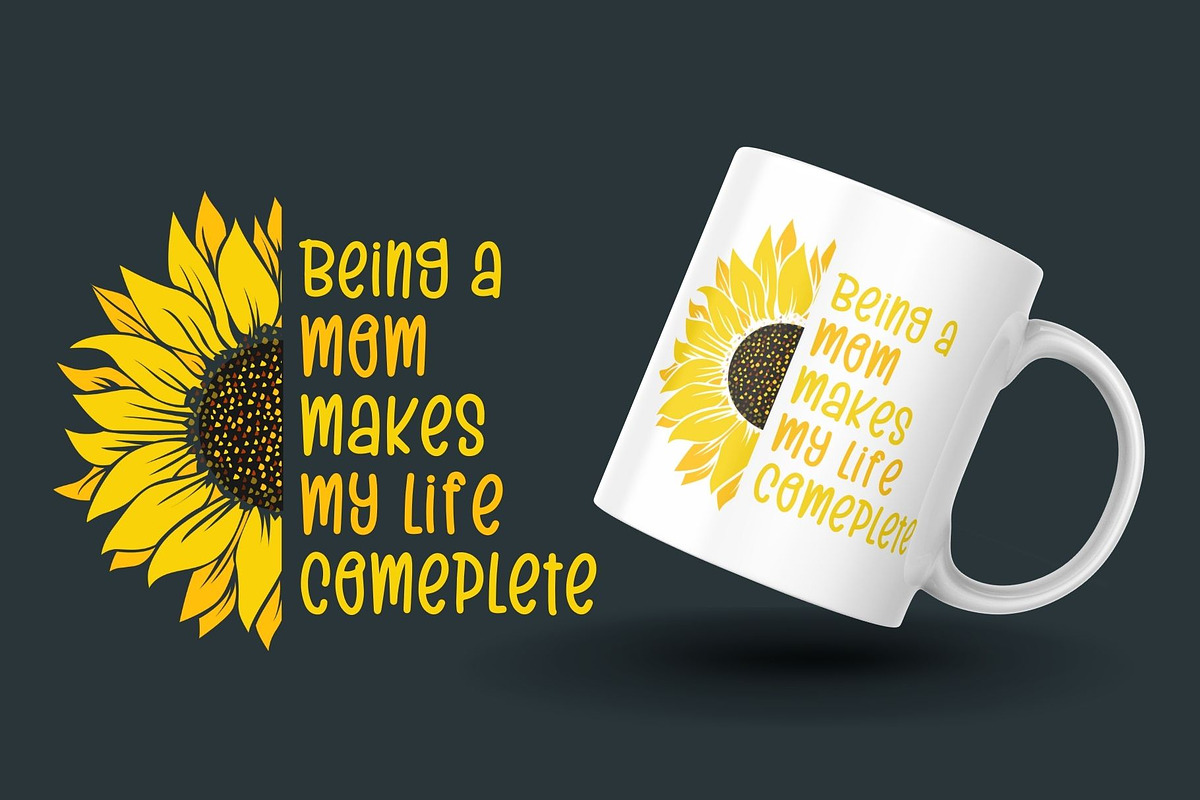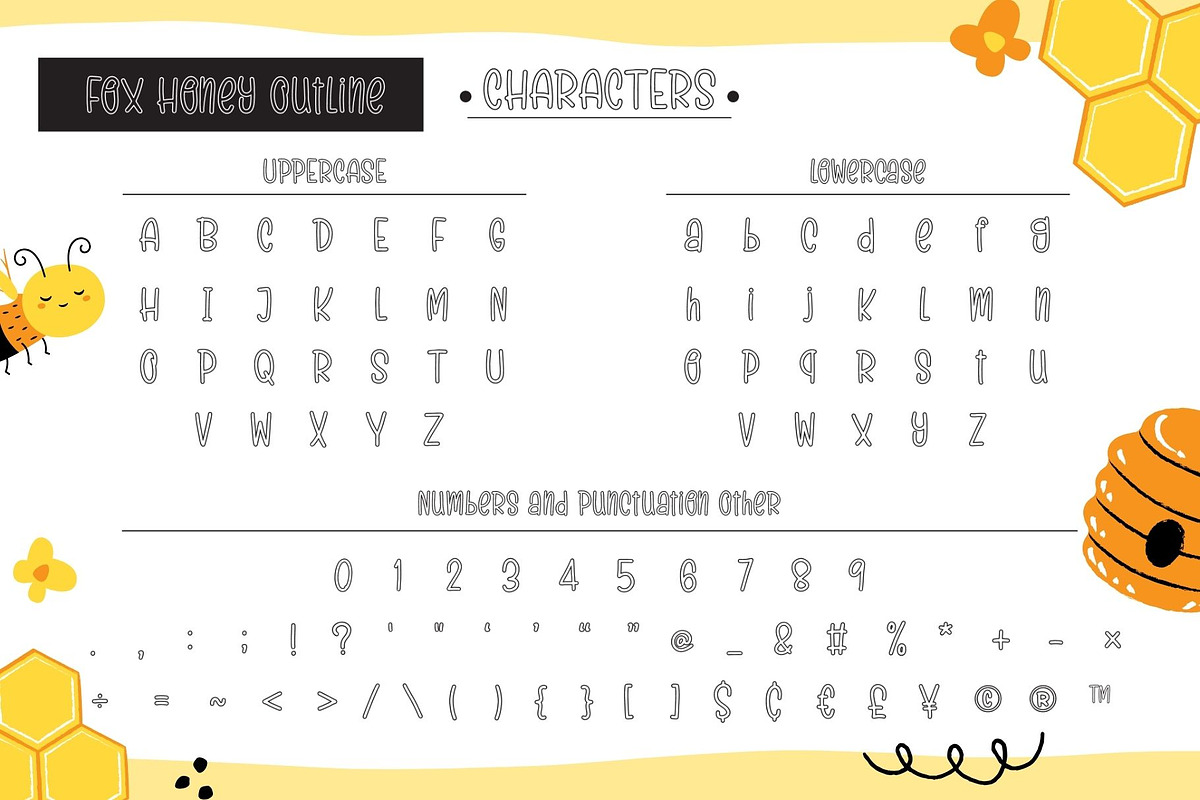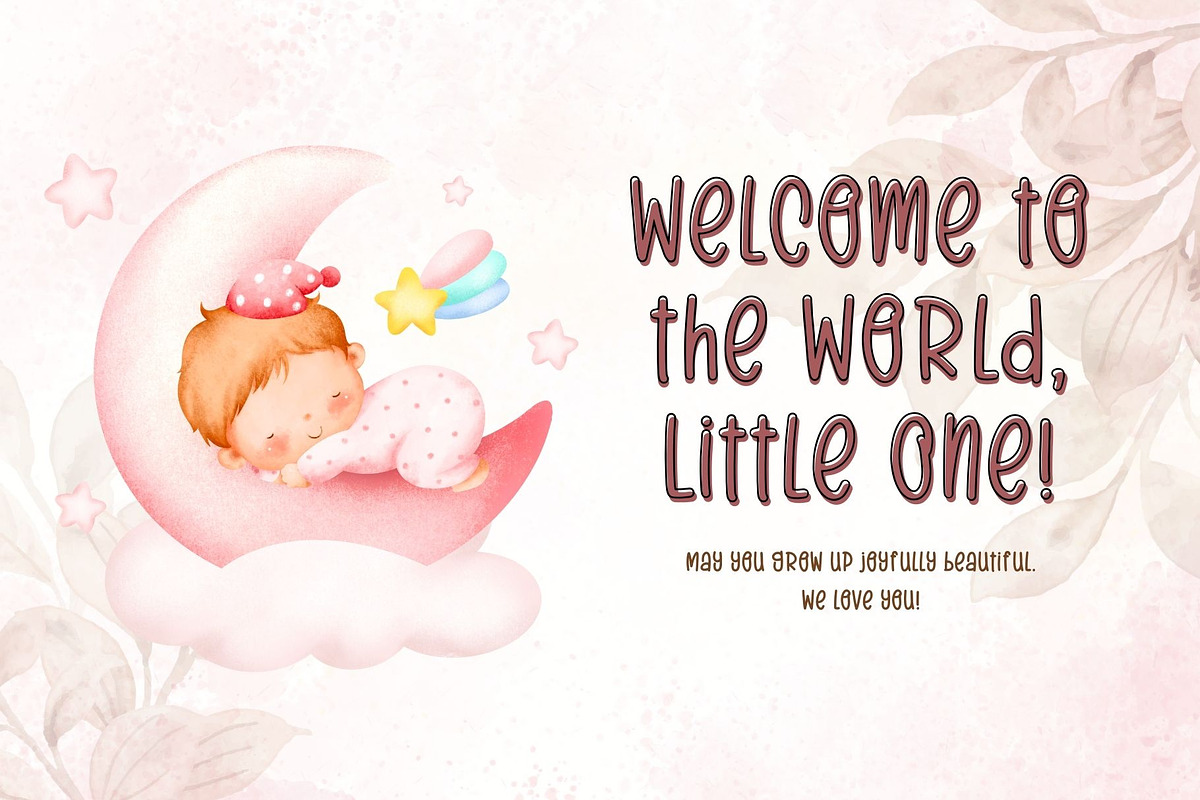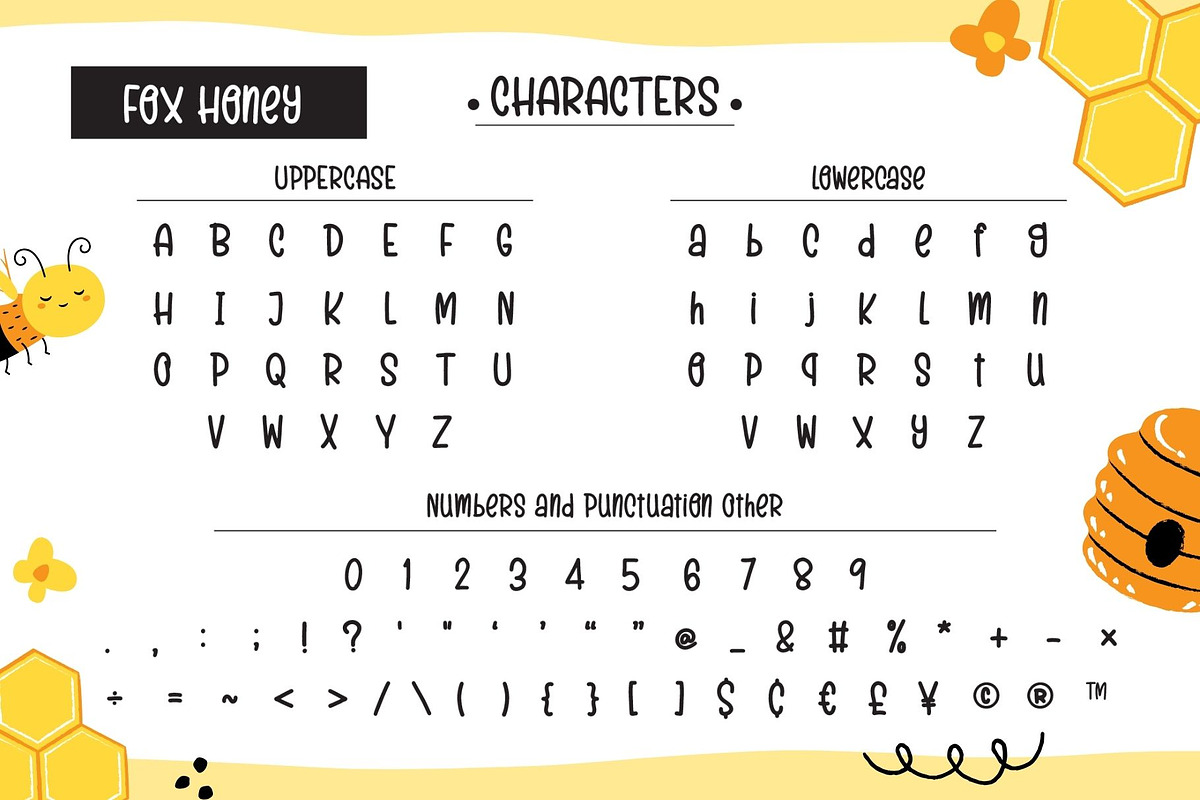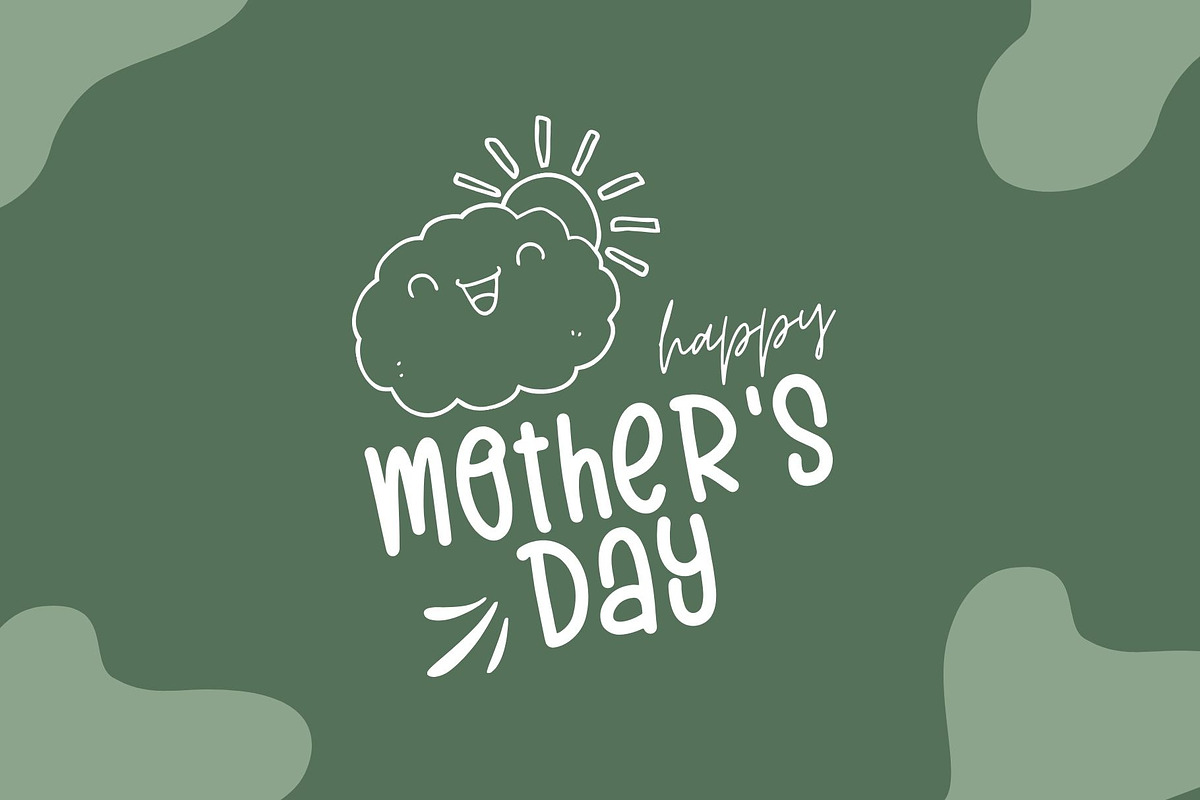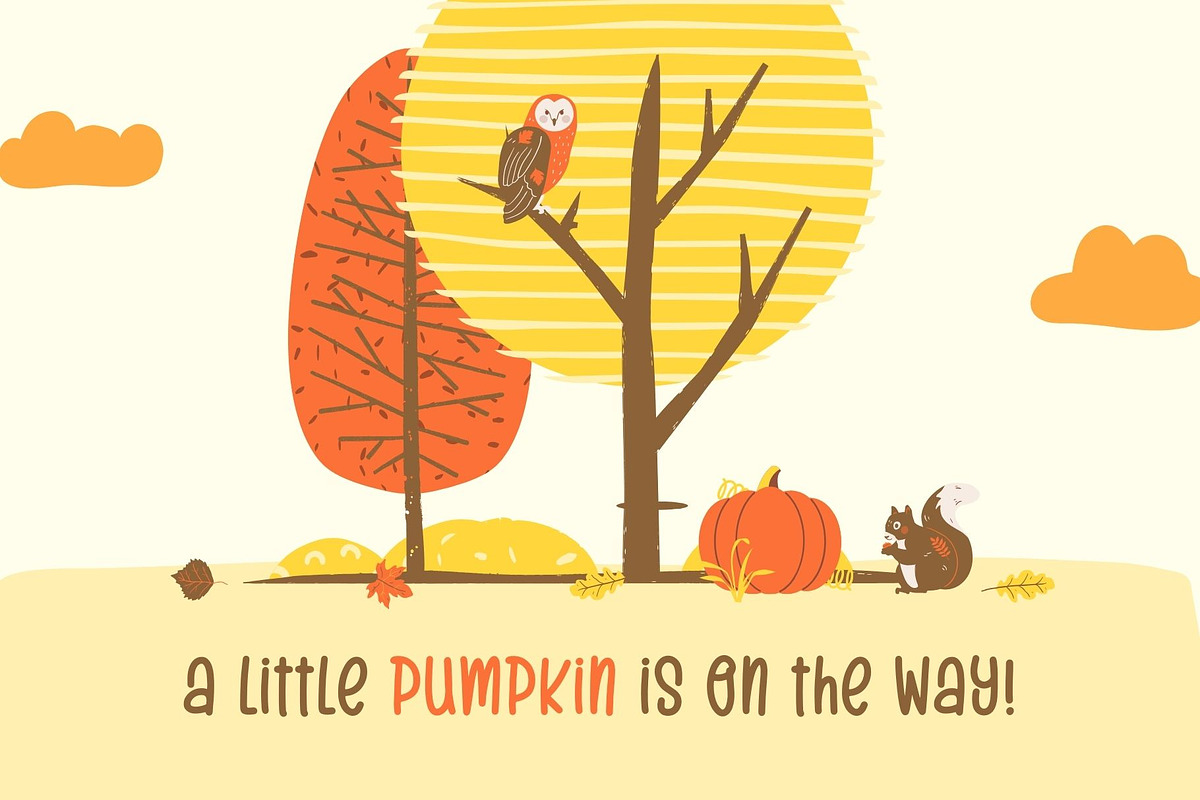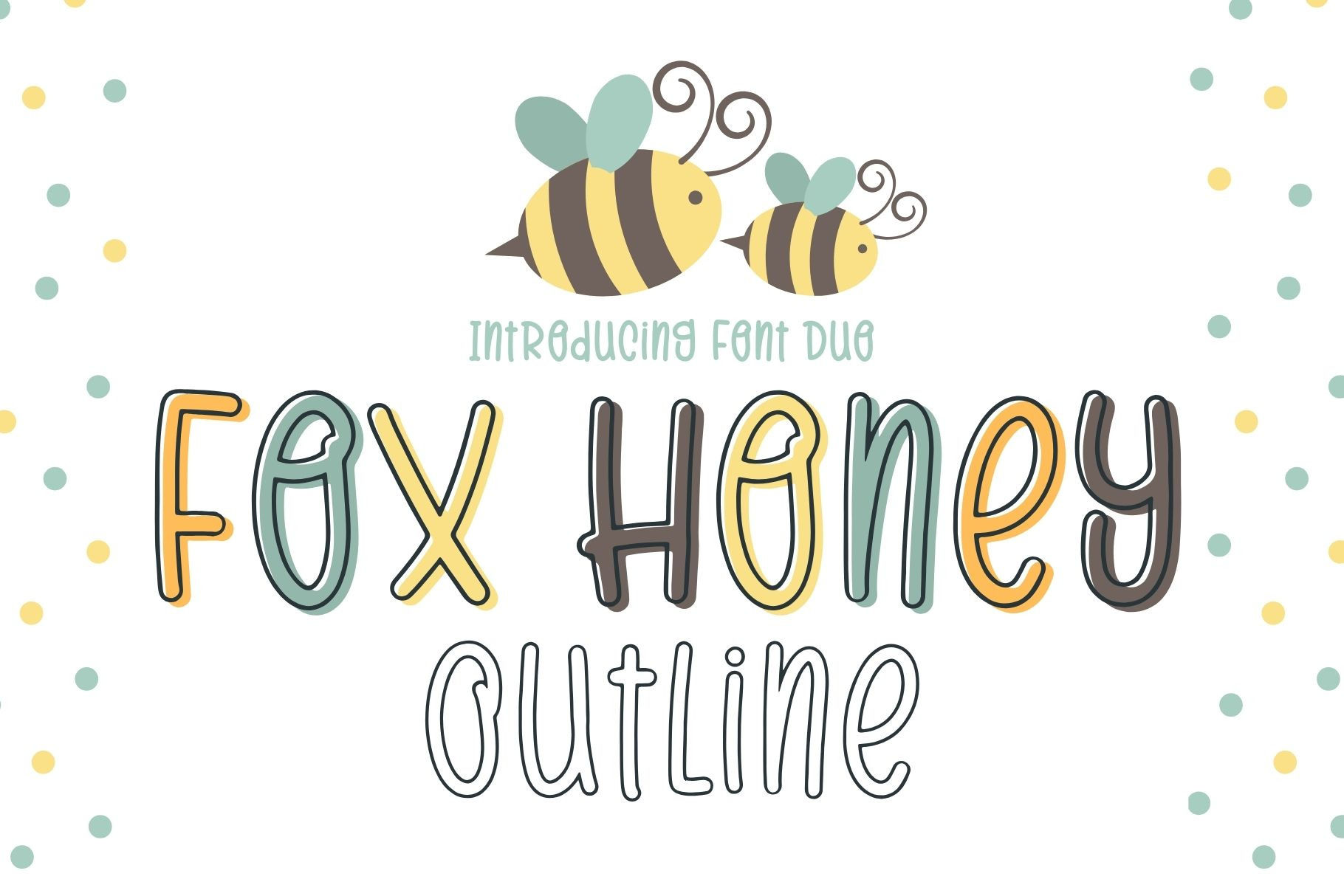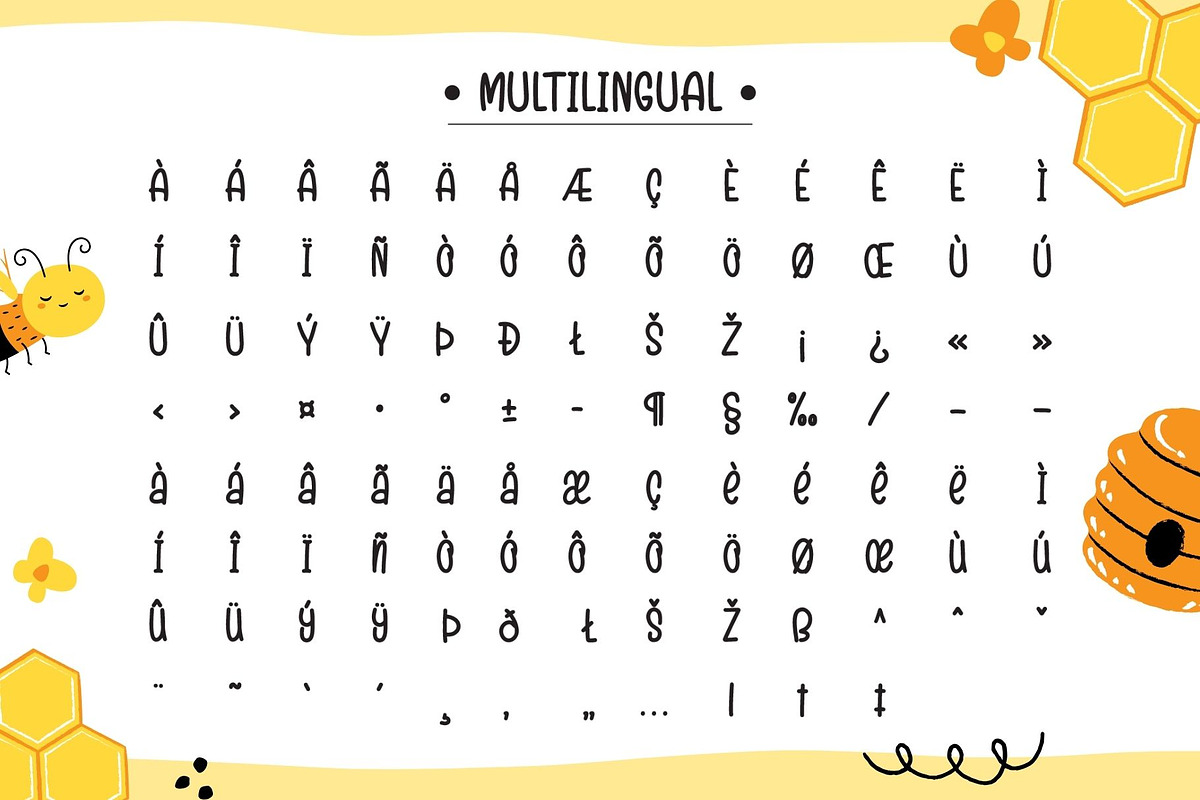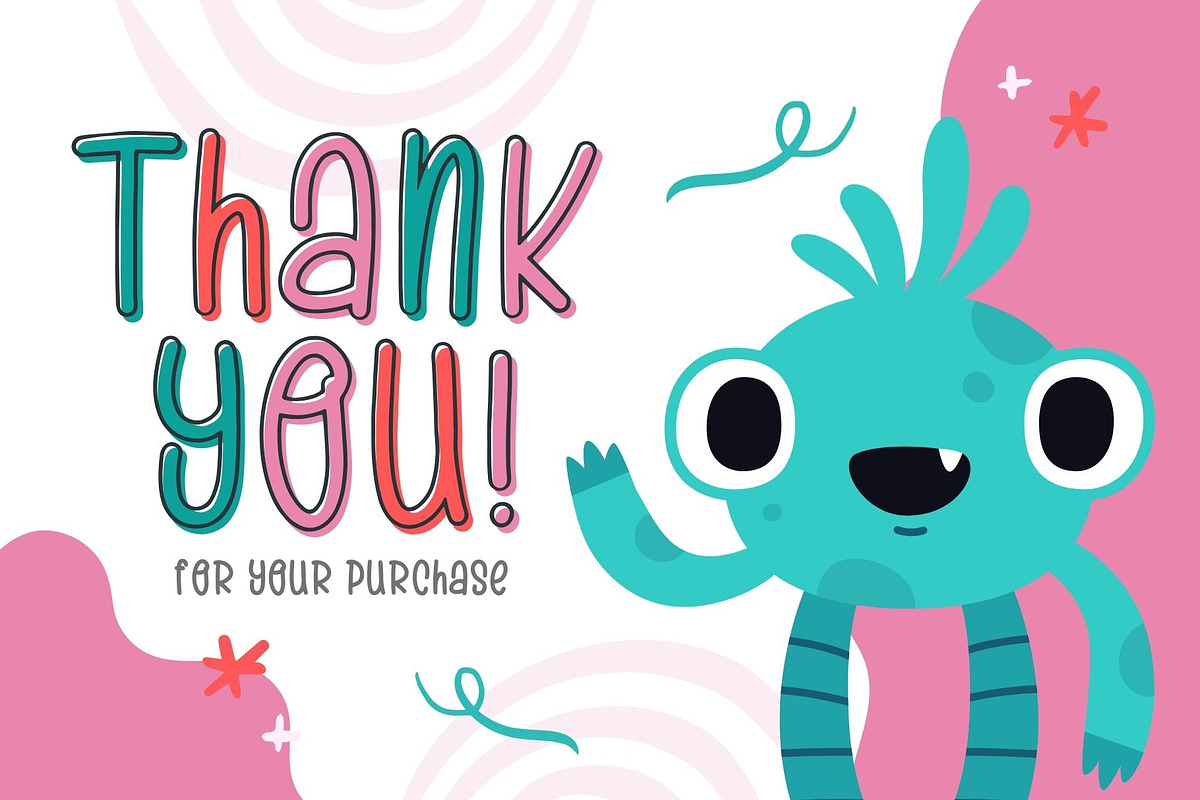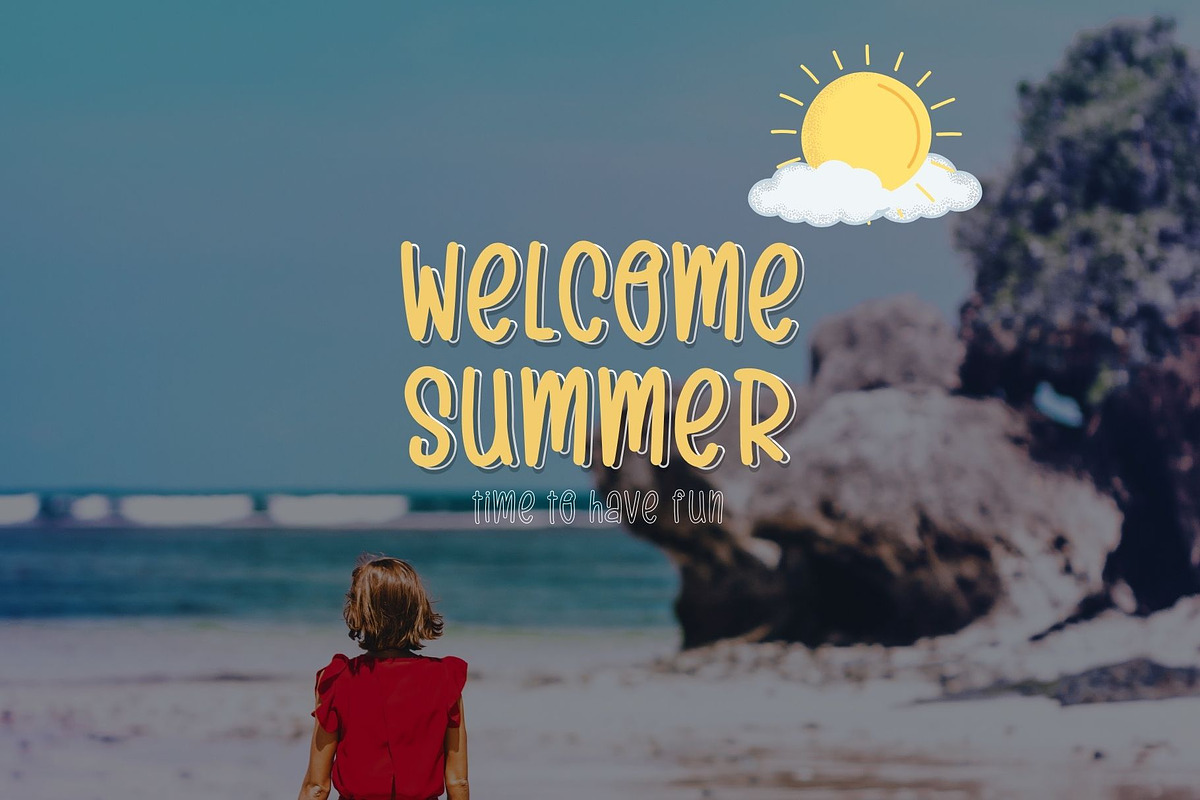
Fox Honey & Fox Honey Outline Fonts
The Fox Honey and Fox Honey Outline fonts are cool and minimal handwritten font Duo. Perfect for use in publications, menus, logos, business cards, or even printed on t-shirts, these fonts exude uniqueness. They stand out in everything, regardless of the subject matter. A valuable addition to your font library, as they have the potential to enhance any design creation significantly.